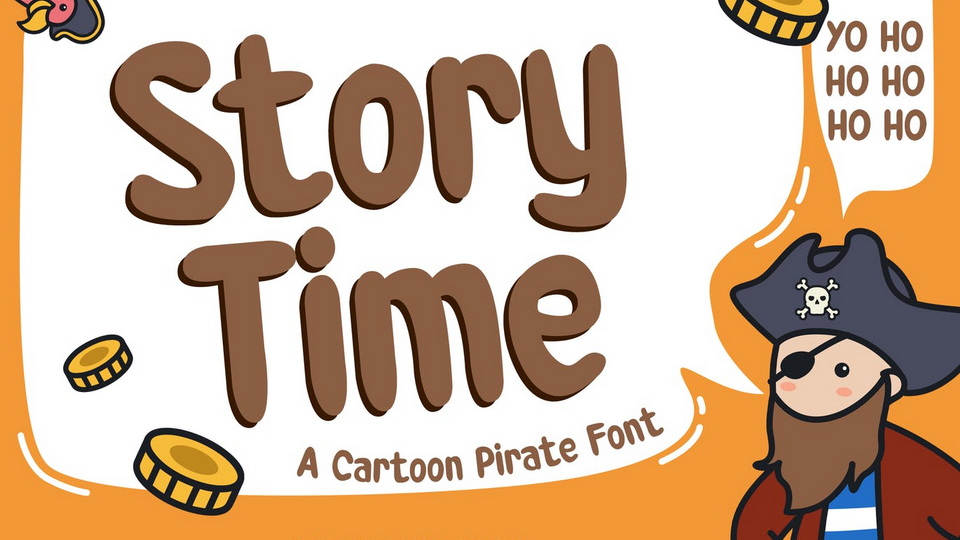
Download Storytime font, a handwritten kids typeface. If you want a font that will make children hooked up on their book, read a lot, and take all information from it with a cheerful feeling, then, Storytime is what you need.